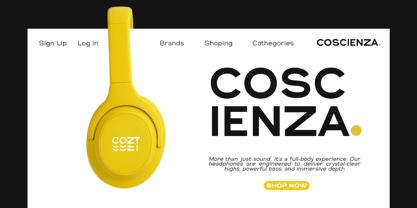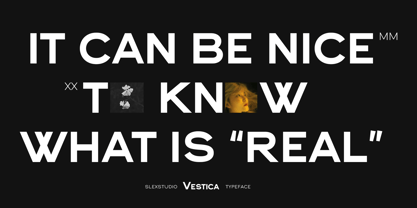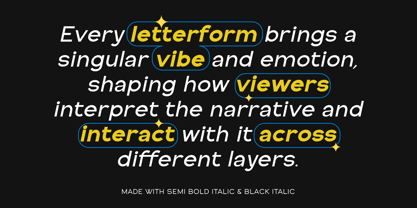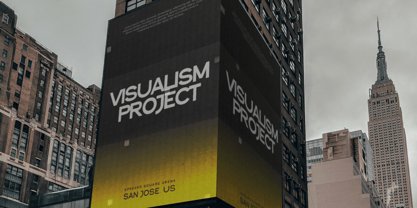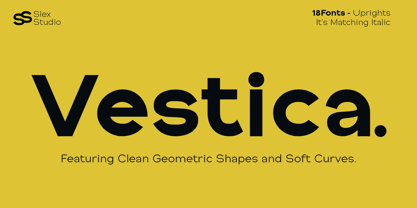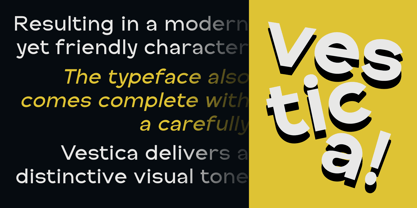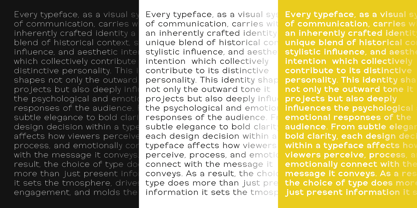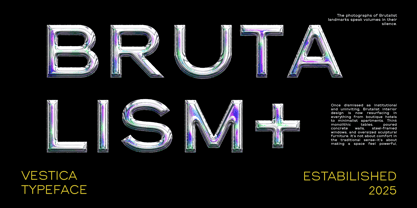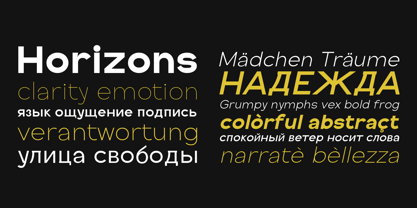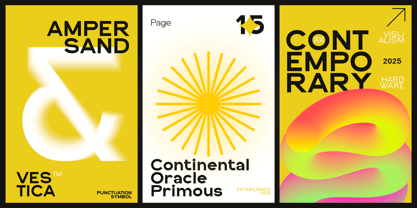
Vestica Neue
by Slex Studio
The Vestica Neue Font Family was designed by Muhammad Rayyan and published by Slex Studio. Vestica Neue contains 19 styles and family package options.
Introducing Vastica Neue, a modern geometric sans serif typeface designed for clarity, balance, and versatility. With clean lines, uniform proportions, and a minimalist aesthetic, this font is perfect for contemporary branding, editorial design, user interfaces, and web applications.
Inspired by classic geometric typefaces, Vastica Neue features circular letterforms, consistent stroke widths, and a harmonious rhythm that enhances readability across all media. It includes a full set of uppercase and lowercase letters, numerals, punctuation, and multilingual support.
Whether you're crafting a bold headline, designing a sleek logo, or building a refined layout, Vastica Neue delivers timeless style with a modern edge.